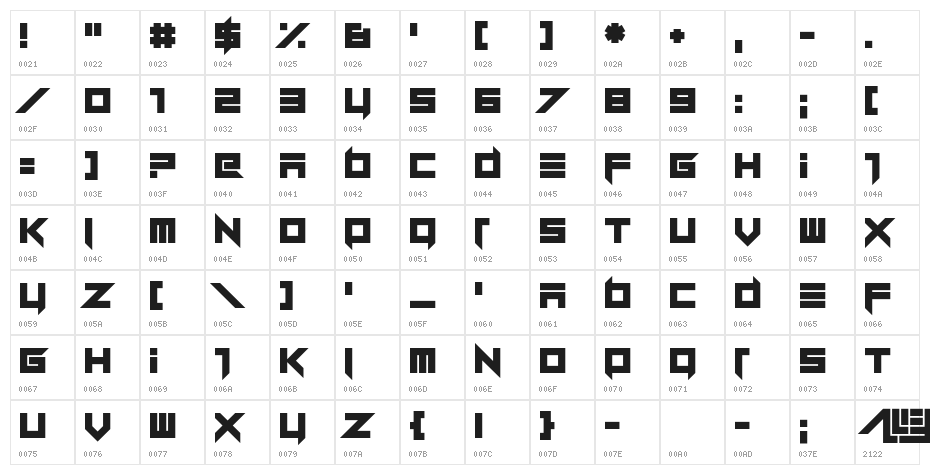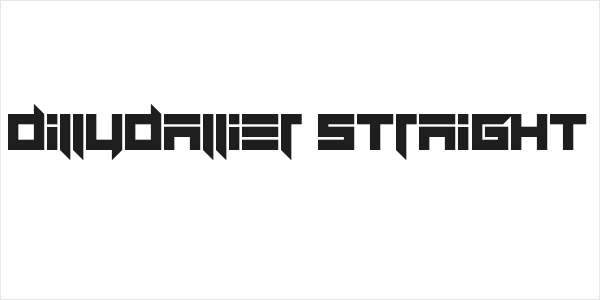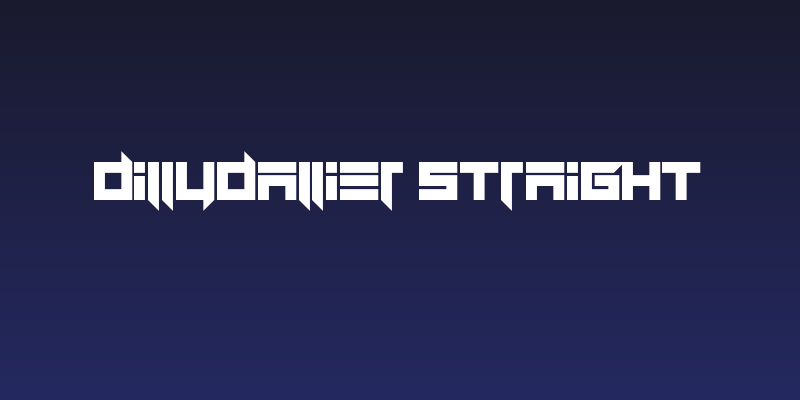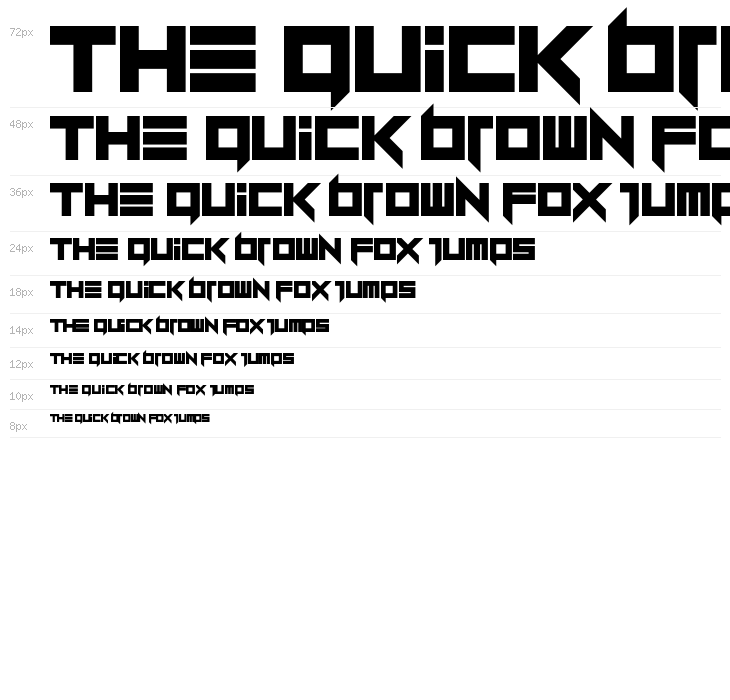
Dillydallier Straight Font
Dillydallier Straight Description
This font features a bold, geometric design with sharp angles and a futuristic aesthetic. Each character is constructed with straight lines and precise edges, giving it a highly structured and mechanical appearance. The uppercase and lowercase letters maintain a consistent style, with the lowercase mirroring the uppercase in form and weight. Numbers and special characters are equally bold and angular, fitting seamlessly into the overall design. The font's distinct style makes it ideal for projects that require a modern, tech-inspired look.
| Proposed Projects | Ideal for technology branding, video game titles, sci-fi book covers, and modern posters. |